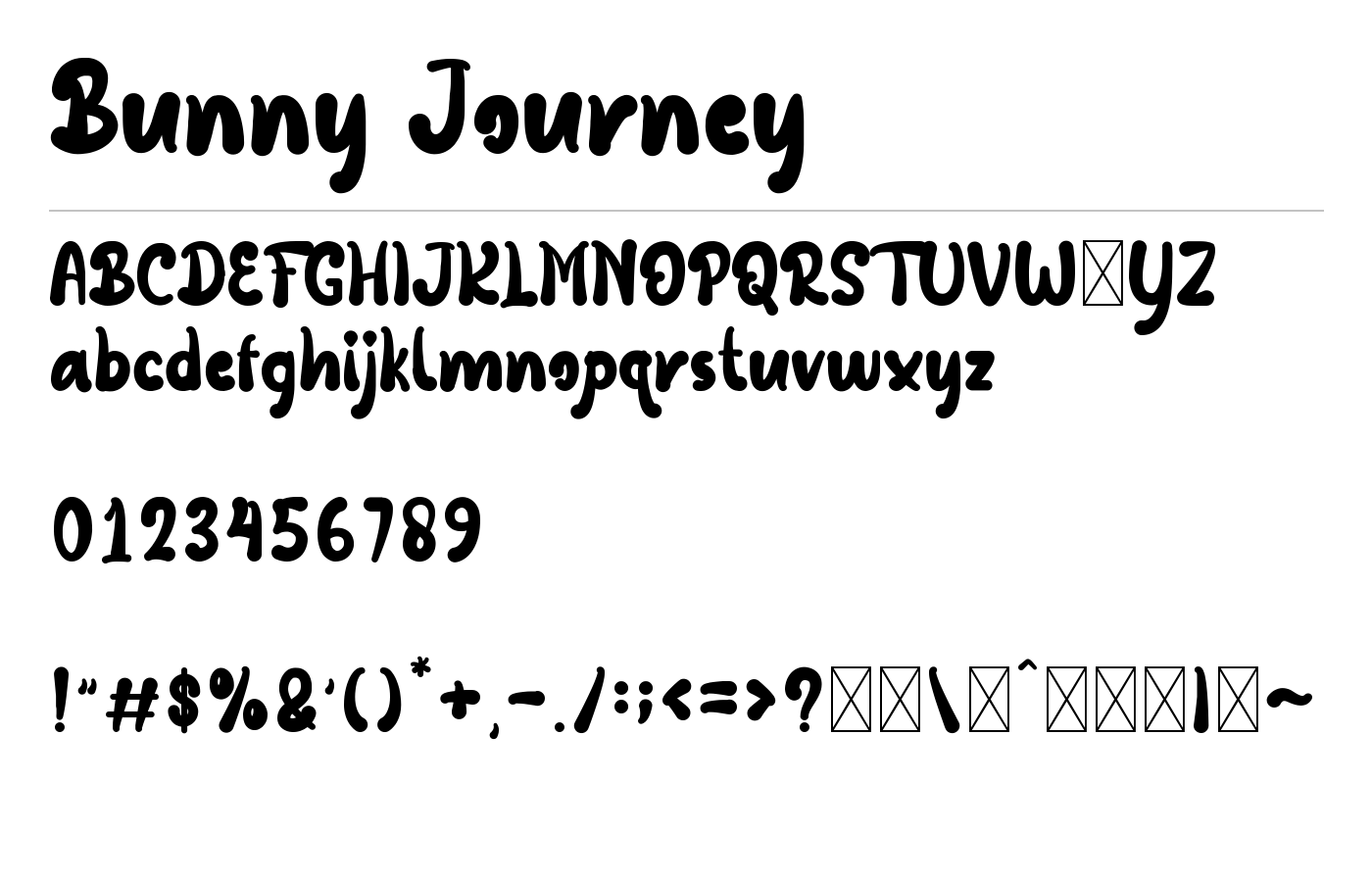
Bunny Journey is a playful, rounded sans serif font with a bold weight and a slightly condensed width, giving it a friendly and approachable feel. Its thick strokes and whimsical letterforms with soft curves make it ideal for children's books, casual branding, and fun, informal designs. This font works best in headlines and display text where a warm, joyful vibe is desired.
Bunny Journey Font
About Bunny Journey Font
| Font family | Bunny Journey Font |